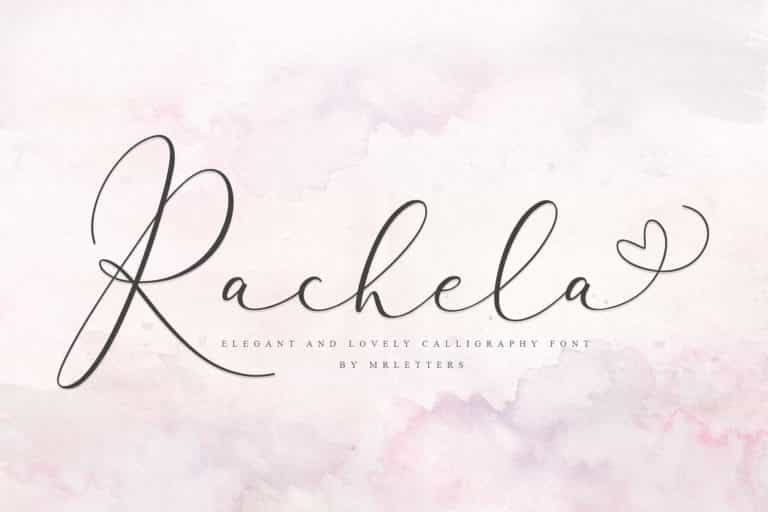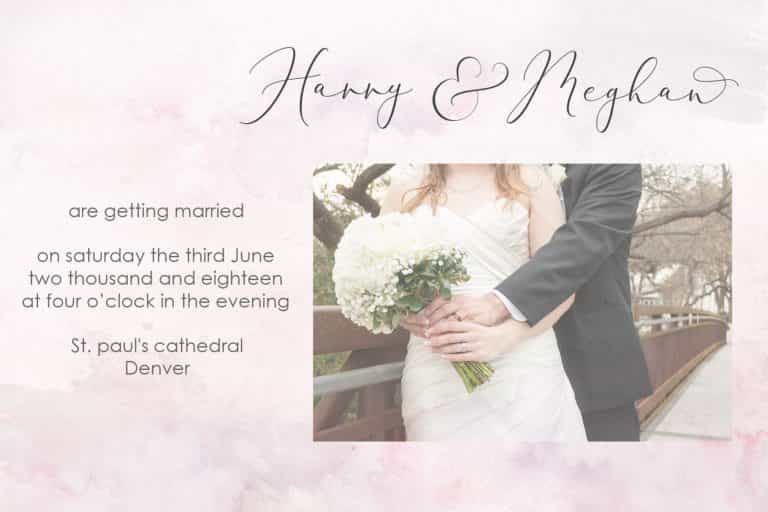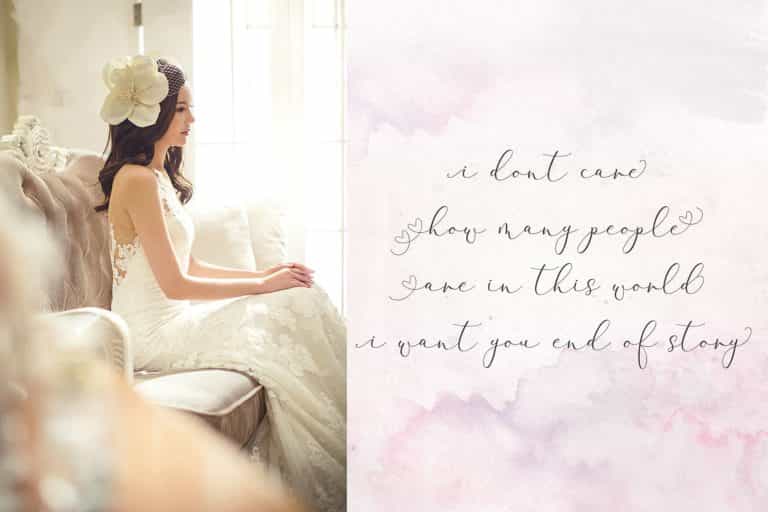
Discover Rachela Script Font, part of the Calligraphy Handwritten collection—a versatile and unique font perfect for adding a personal touch to your projects. Download it for free and enjoy crafting designs with style, from invitations to social media posts. This font is available exclusively for personal use, giving you the freedom to create without limits. Unlock your creativity with Rachela Script Font today!
Introducing Rachela Font! Rachela is designed and shared by MrLetters. Rachela a new beautiful font was created to satisfy the needs of your next design. Suitable for all your modern design, like logos, branding, fashion brand, and modern promotional. Rachela Font is suitable for any design needs, modern design, branding, blog design, modern advertising design, invitation, quote, stationery, and anything else.